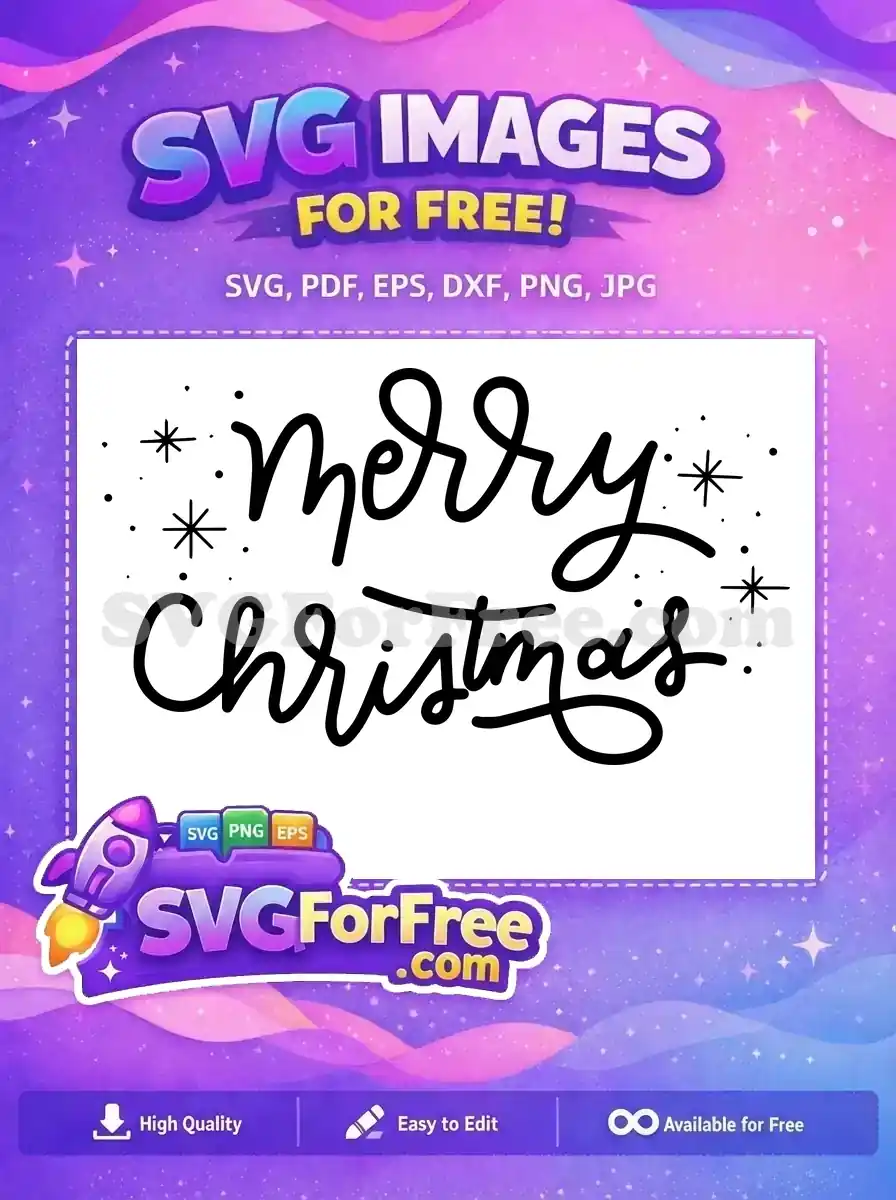
Free Merry Christmas Font Free Star Accents Holidays Free SVG – Instant Download
A ‘Merry Christmas’ design in a rustic, handwritten font, accented with a star and a decorative underline.
Free Merry Christmas Font Free Star Accents Holidays Free SVG